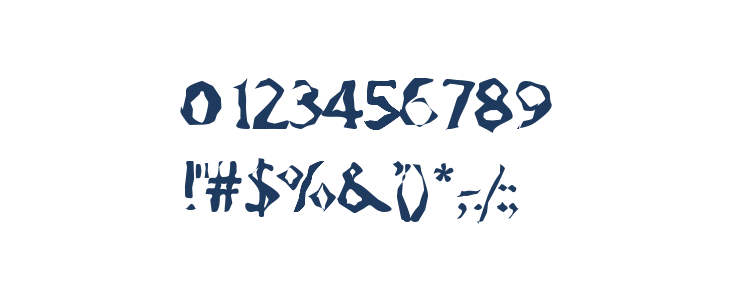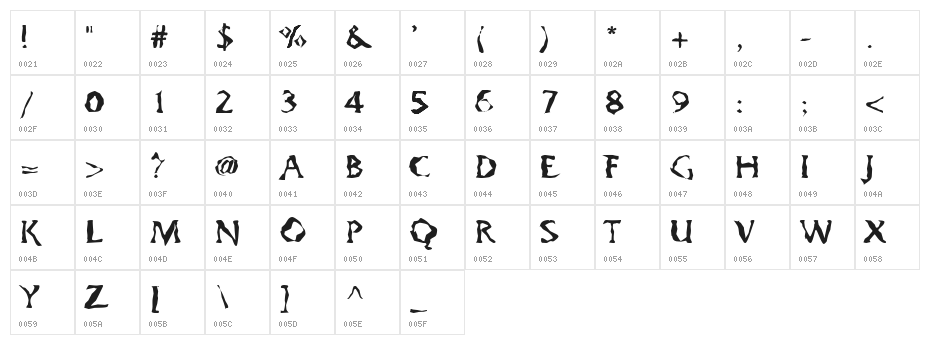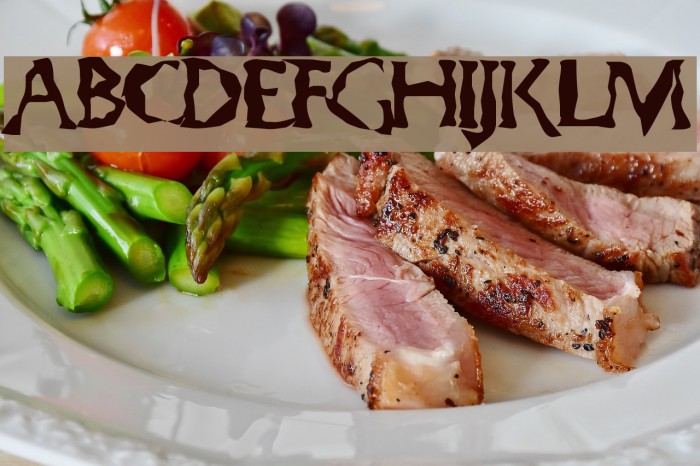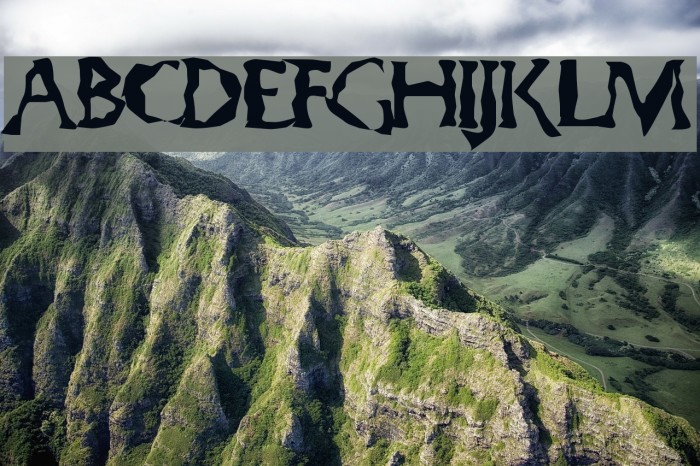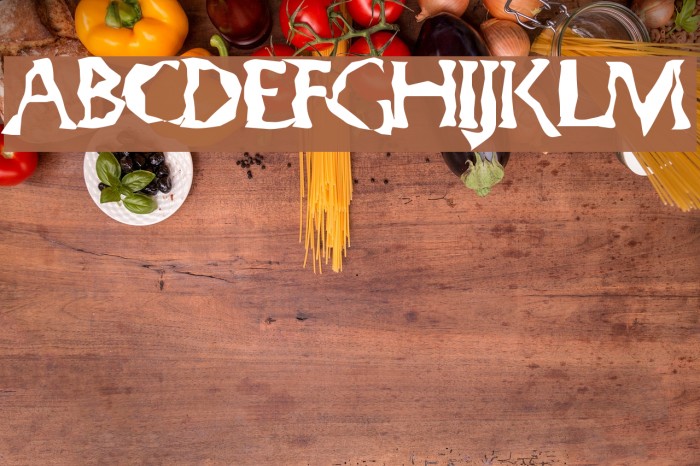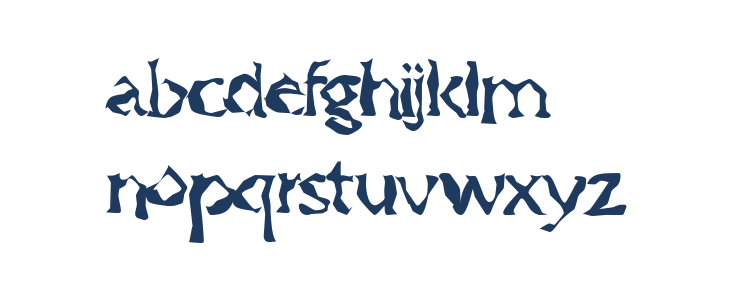
Gumbootcha Font
Gumbootcha Description
This font features a bold and jagged design, reminiscent of hand-cut paper or rough brush strokes. The characters have an irregular and dynamic appearance, with sharp angles and varying stroke widths that create a sense of movement and energy. The uppercase and lowercase letters maintain a consistent style, while the numerals and special characters complement the overall aesthetic. The font's unique and edgy look makes it stand out, suitable for projects that require a distinct and artistic touch.
| Use Case | Logos, Posters, Artistic projects |
| Proposed Projects | Ideal for album covers, posters, and creative branding projects that need an artistic and edgy look. |